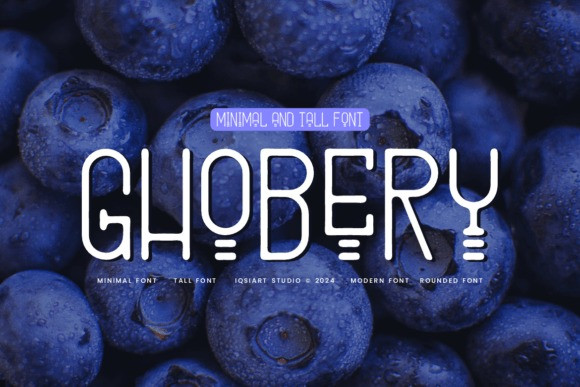
Ghobery Font
Ghobery Font is a sleek and tall modern font with clean lines, perfect for making text stand out. Its bold, elegant style works well for titles, posters, or any project that needs a strong, eye-catching look.